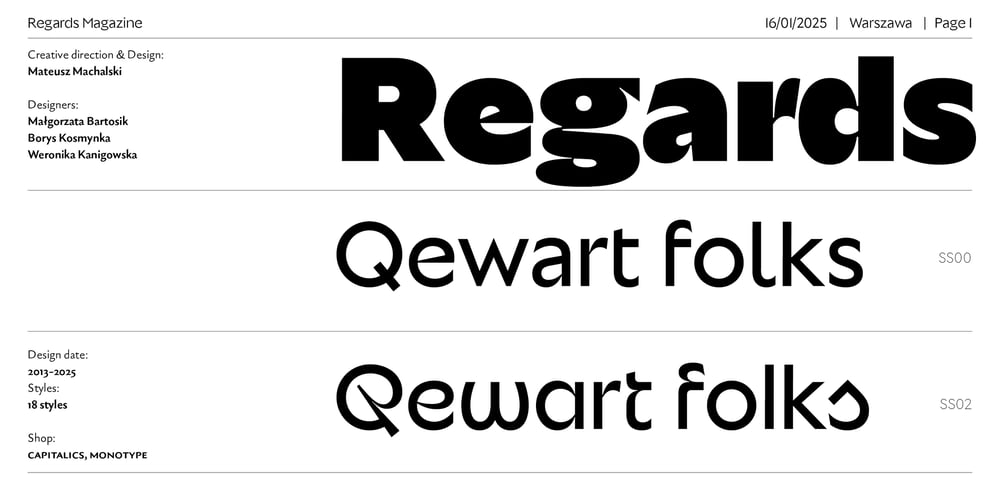
Regards Font Family was designed by Mateusz Machalski and published by Machalski. Regards contains 19 styles and family package options. Sometimes typefaces start to mature and develop with us. In 2013, on my return from London, having been hugely impressed by the work of Edward Johnston and Eric Gill, I designed the typeface Picadilly – which was to be a kind of postcard with an afterimage record. Pretty soon some things started to bother me about it, a version appeared, new, Neue, next, 2.0…. Over these 10 years I have often returned to the form of letters we know so well from the London Underground and decided to explore it again. This time the changes have gone so far that even the name has also changed…. Regards is a kind of homage to the aesthetics of the streets of London, in which the works of the greatest masters of typography are interwoven alongside neo-Gothic architecture or Brutalist insets. The whole family has a sharp character with humanistic detail – and is accompanied by a many alternative versions of the each glyph allowing for visual experimentation. Under the creative direction of Mateusz Machalski also participated in the project: Małgorzata Bartosik, Weronika Kanigowska, Borys Kosmynka.